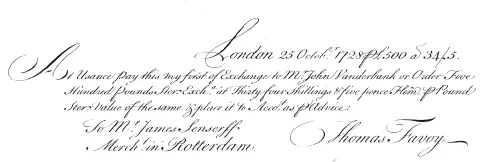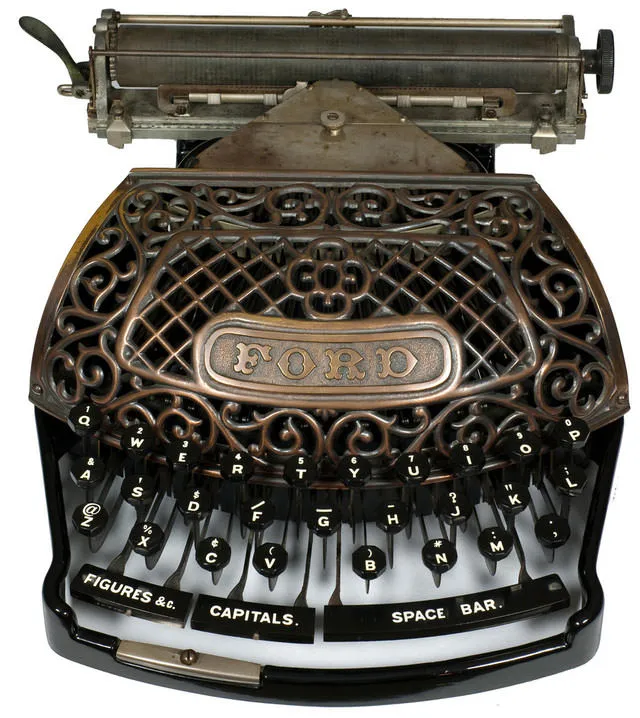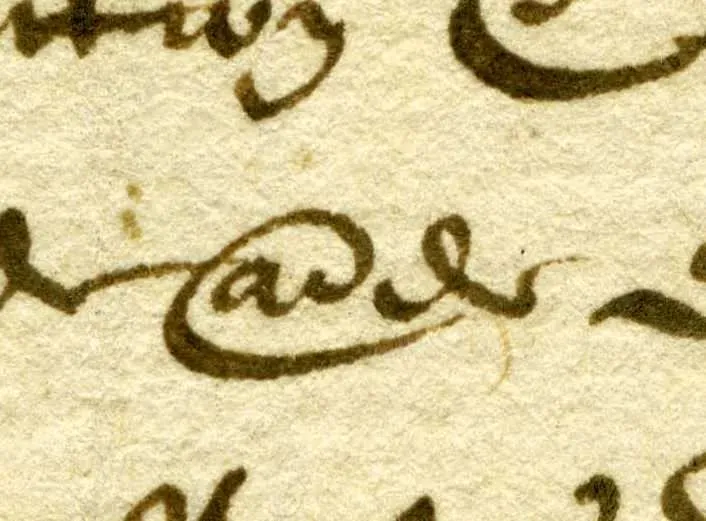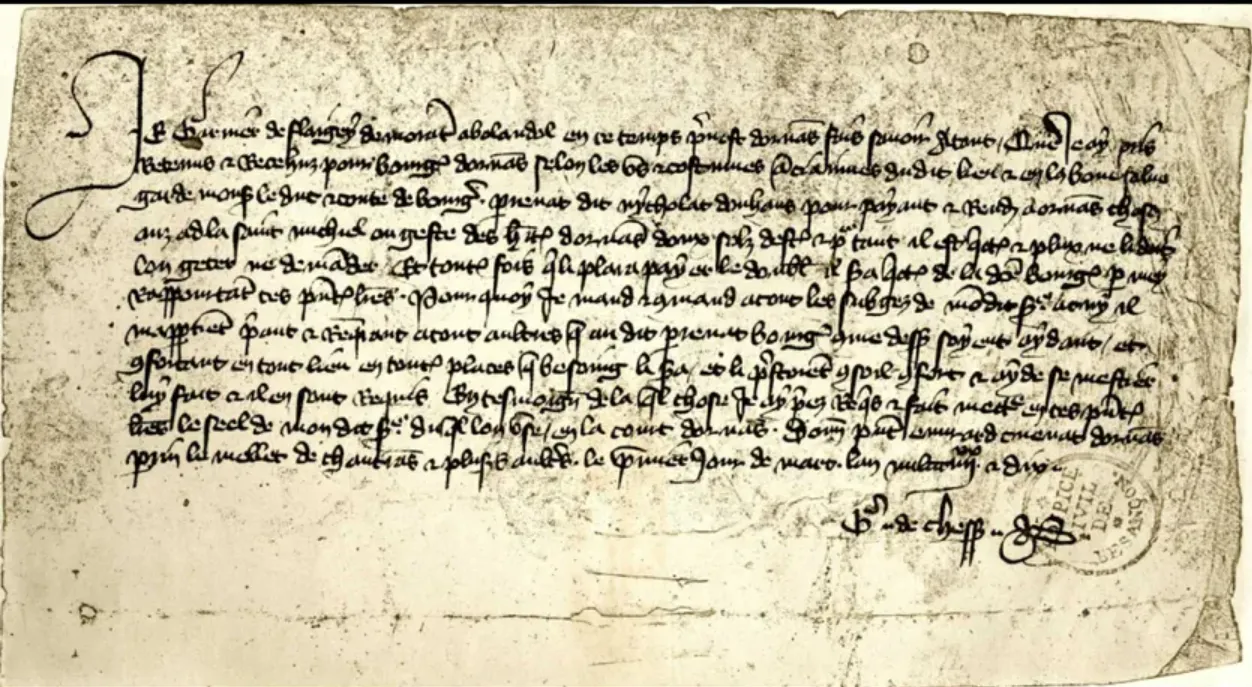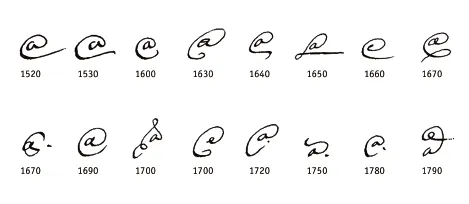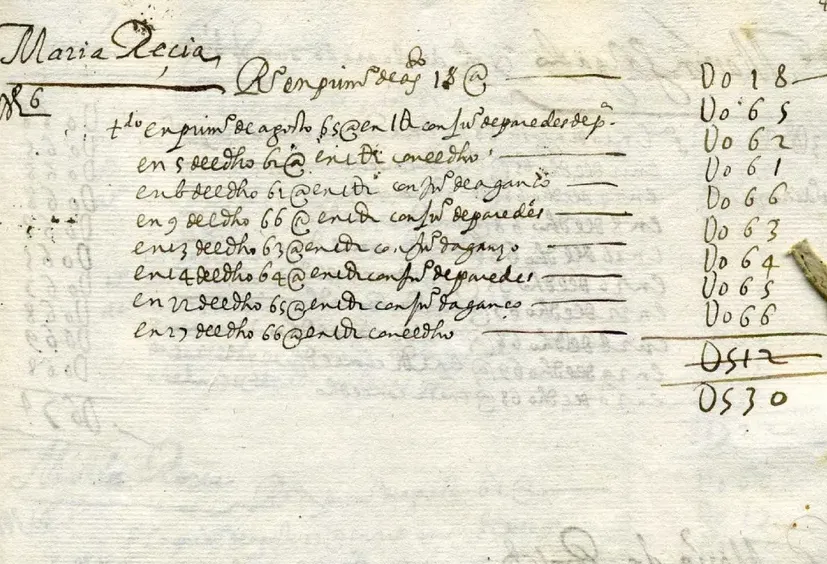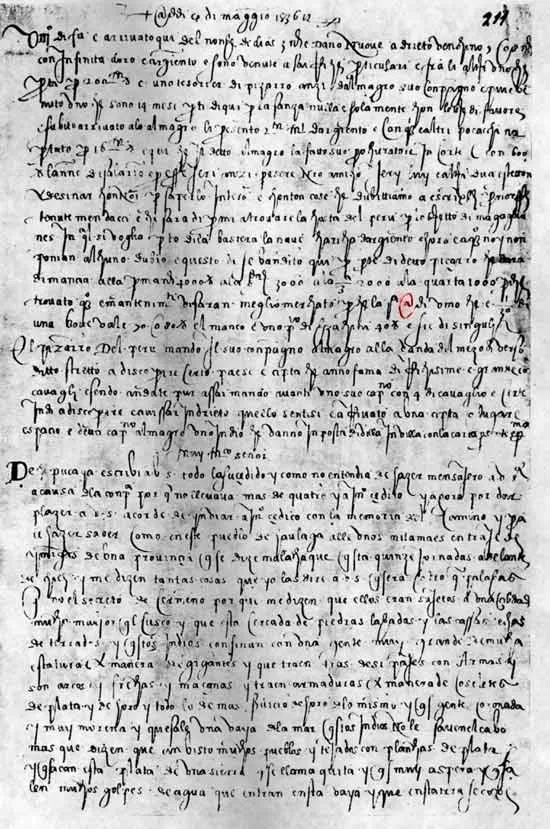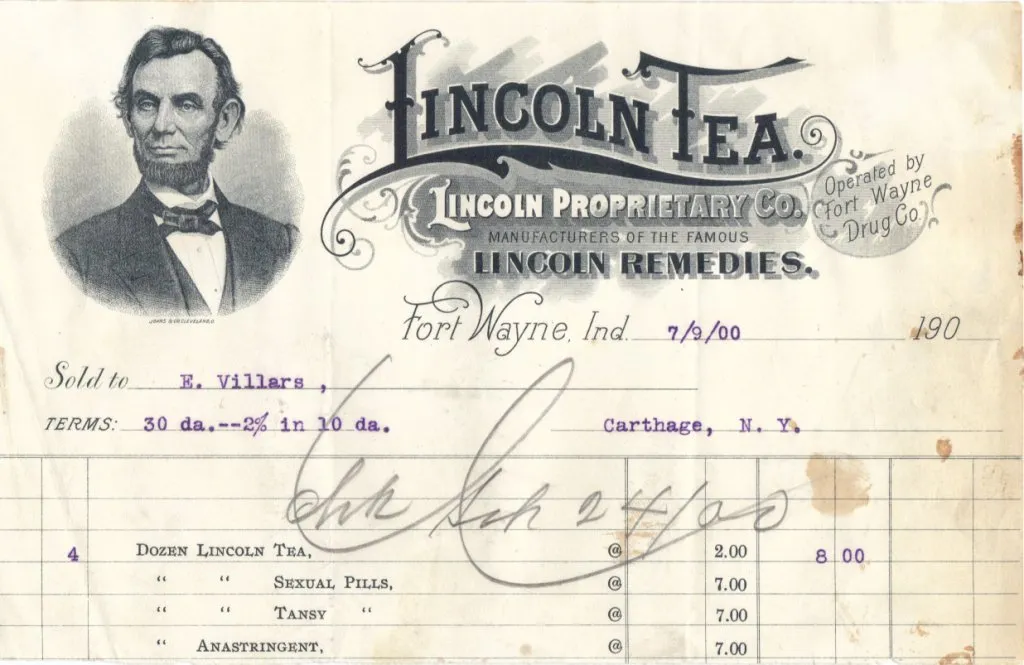
@: History of a sign
And it's not from the internet
Introduction
My 9 years old kid is typing a text on my laptop during our holidays. Sometimes he likes to design a pixel font on Fontstruct. But what he prefers is the @ sign, which is like a small snail to him. A simple sign, spiral shaped, that everyone uses everyday since the internet came into our lives. But I remember when I was a kid, my mother kept an old typewriter, probably an Olivetti Lettera 22, and the @ was already here, a long time before the first e-mails began.
I’m happy my youngest son never asked the history behind this graphic symbol, that’s why I've spent some time searching before he starts asking these questions.
So, why is this @ is on every keyboard or has been so for decades, even before e-mails? What does it mean if it’s not only an “at” sign? Marc H. Smith, a french-english paleographer, has done amazing work tracing the history of @. The French speakers can have a look at his lecture at the Ecole nationale des chartes here or read his article in issue 55 of Graphê, 2013.
Talk from Marc Smith for the Ecole Nationale des Chartes
A first step is to eradicate all the various and funny hypotheses like the latin “ad” abbreviation, which had never been used in the writing of copyists monks nor in the diplomatic documents of the XVII & XVIIIth centuries (some explanations later in this text).
The spanish origin of @
Spain has been occupied by arabic peoples since the VIIIth century, modeling a new culture, a new language at his contact. “Ar-roub” is an Arabic word meaning “the quarter” of a hundred kilos: 25 kilos. Its Spanish transliteration is “arroba” or “arrova” which gives us the name abbreviated in @, attested in Portugal since 1520 and in Spain in 1530 (but we could find some documents from 1520 too).
Spanish weight of 1 Arroba
An hypothesis was proposed by Professor Giorgio Stabile in 2000 after reading the @ as the latin abbreviation for “amphora” in a sevillian merchant letter of 1536, arguing the @ sign was also seen as a titulus pictus, the hand painted mark on amphora. Pure fantasy: the amphora abbreviation is not documented elsewhere and should be considered as a misreading of the arroba weight measure abbreviation.
Historical evolution of the iberic abbreviation arrova(s)/arroba(s), XVIth-XVIIIth century. After Eduardo Borges Nunes, Abreviaturas paleograficas portugesas, Lisbon, 1969
The arroba written as a @ has been used from 1520 till 1880, date of the generalization of the metric system in Spain. Regarding the typographic use, we can date its appearance in 1754 as an abbreviative glyph in the Ortografia de la lengua castellana of the Spanish Royal Academy. Spanish types founders cutted the punch for printing linguistic and accounting manuals. Later, French founders used the @ in Spanish manuals since 1821 and perhaps before.
Medieval abbreviations
While the arroba was a Spanish measure abbreviation, we don’t know yet why it’s also used as the commercial “at” sign. Anyway, paleographers had also noticed some appearance of the @ sign before the arroba abbreviation. So, there’s another reason behind this use.
An abbreviation is mostly a contradiction of a whole thing into a simpler sign. Acronyms, monograms are both abbreviative forms, because they stand with fewer lines than what they show. In the case of the @ sign, it’s the first letter encapsulated in a spiral, but the ductus (the decomposition of the line drawn by the hand) should be seen as a lowercase “a” with a small line above: called titulus, it’s still use in today’s Spanish language under the name of tilde.
@ could indicate many things under this common writing. Marc Smith found some medieval use before 1400, “@ciainnes” (“anciennes” in modern french, means “ancient”, “old”) in a document act written at Ornans, Franche-Comté, France, in 1391.
Act by the prévôt d’Ornans, 1391, Archives départementales du Doubs
Preposition: from “a” to “à” and “at”
Those who are still following this text should shout “And what about the commercial at sign?” Perhaps you should think our @ is just a common abbreviated form for “at”, that's all. The final “t” is written in a dynamic ductus, close to an oncian “d”, the journey is over, the spiral is closed. Nonsense! There’s another story to tell.
In the middle of the XVth century, in northern Spain, a graphic curiosity appeared, probably influenced by the Latin abbreviation seen before. The Spanish “e” (and) conjunction is written in a rolled up shape, then, by another influence, the preposition “a” (at).
@ preposition standing for a, 1570 Giovan Francesco Cresci, Il perfetto scrittore, Roma, 1570.
@ preposition standing for a, 1570
Giovan Francesco Cresci, Il perfetto scrittore, Roma, 1570.
@ preposition standing for a, 1570 Giovan Francesco Cresci, Il perfetto scrittore, Roma, 1570.
@ preposition standing for a, 1570
About the article’s author
Sébastien Hayez was an art director and graphic designer before becoming an art teacher and an independent researcher in the field of graphic design and type design history. His main topics are the history of logos, square books, modernism, and the minimalist italian designer AG Fronzoni 1923-2002. You can read his contributions in the pages of magazines such as Etapes, TheShelf Journal, Pli, Kiblind, Yellow Submarine, Fiction, or listen to his lectures for Les Rencontres de Lure or Fonts & faces #7.